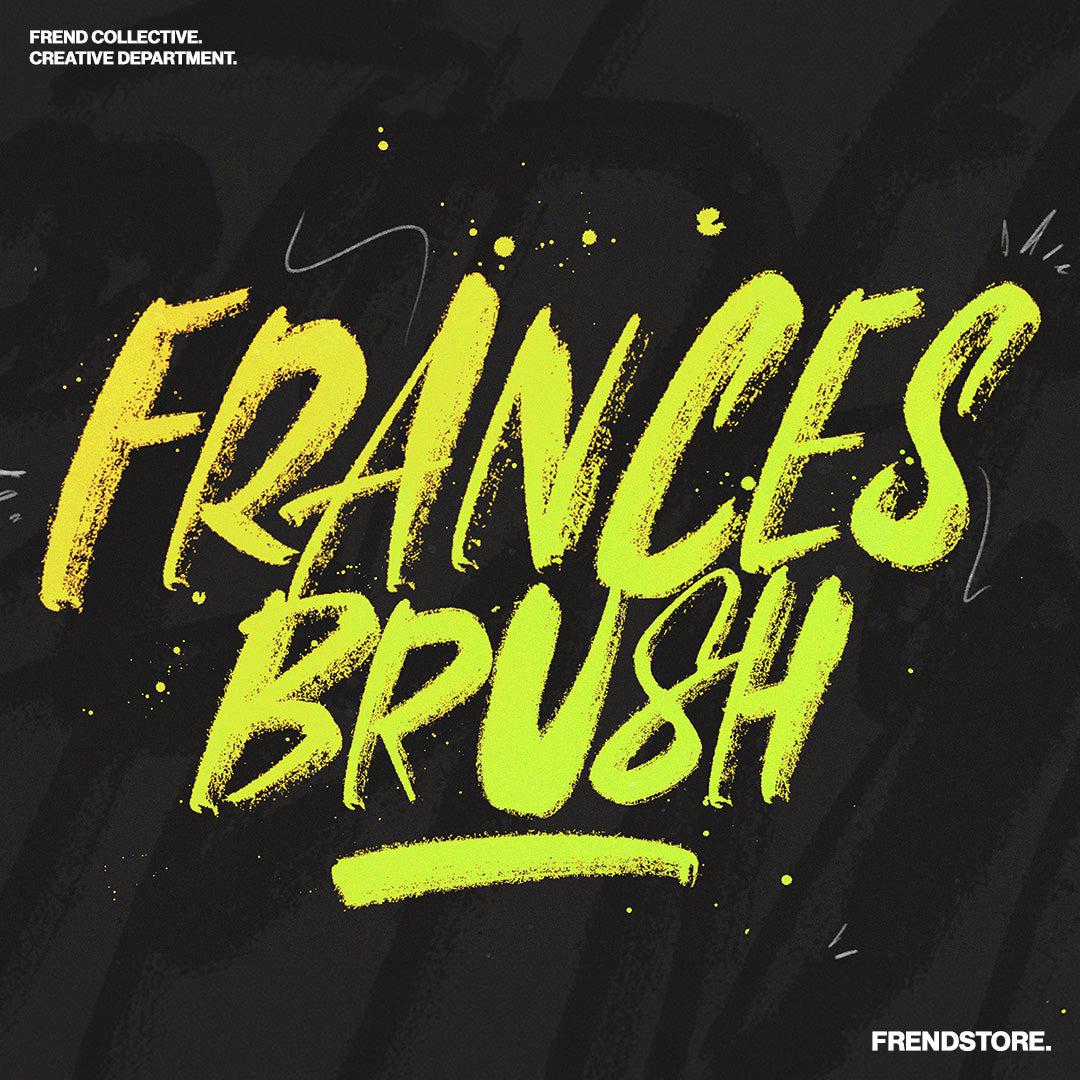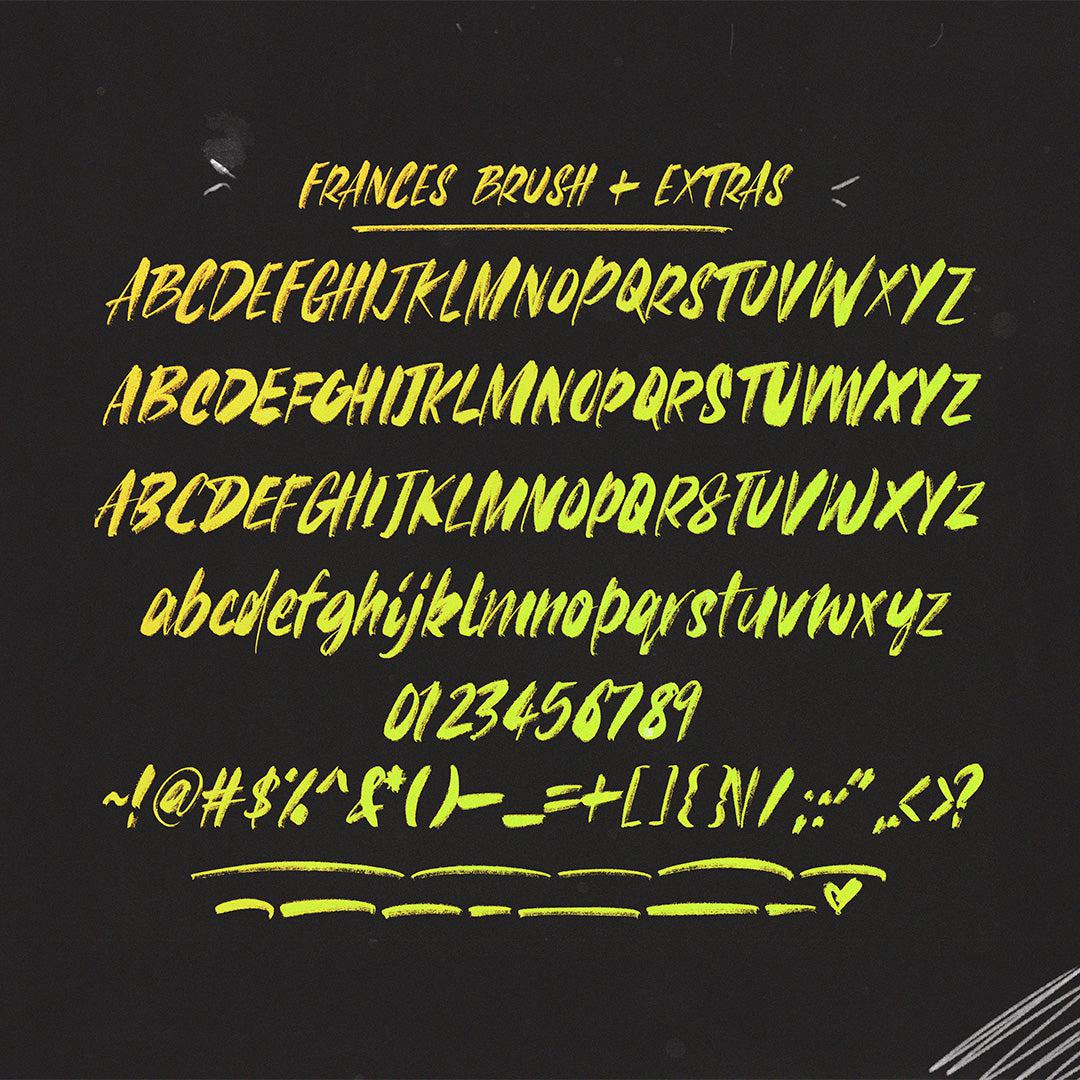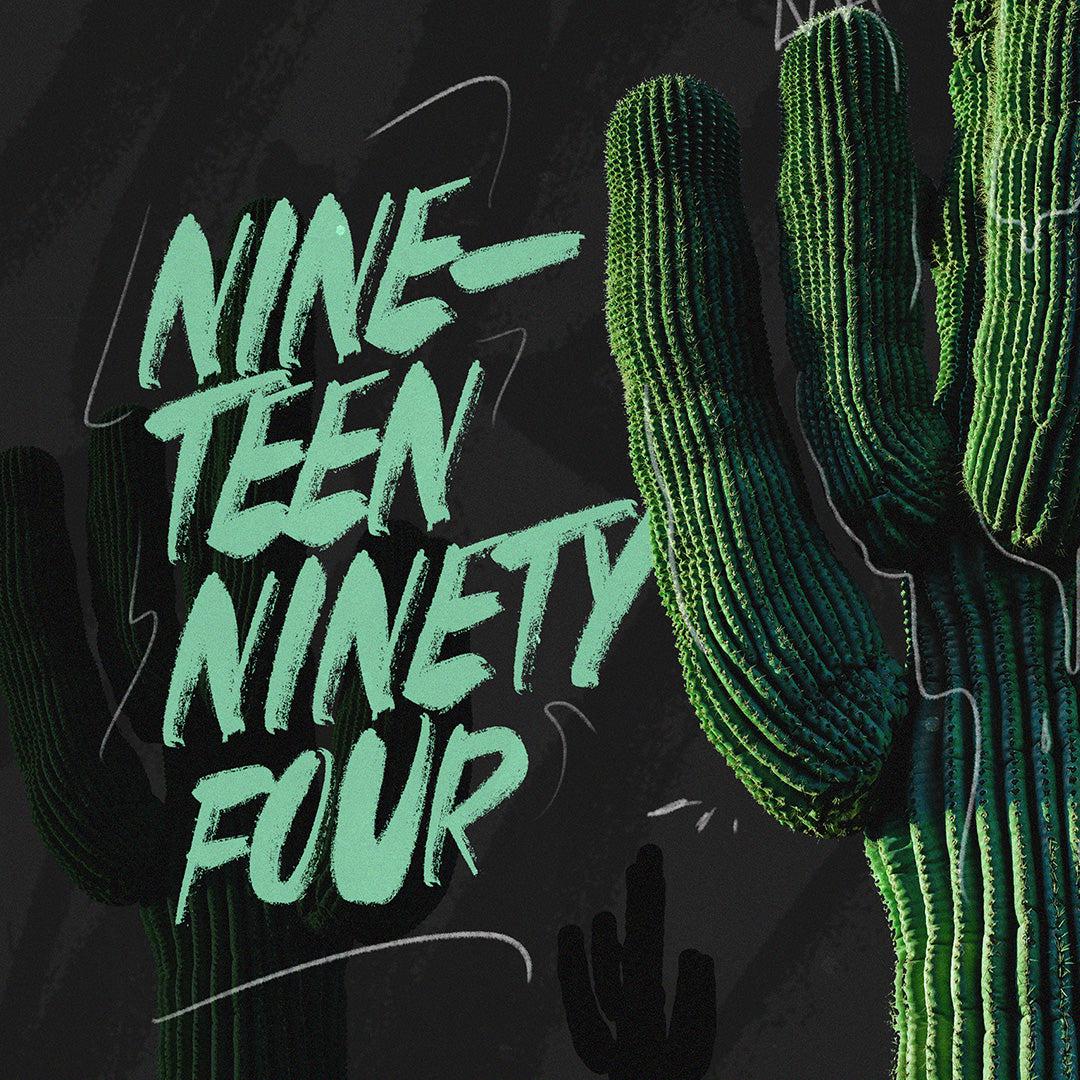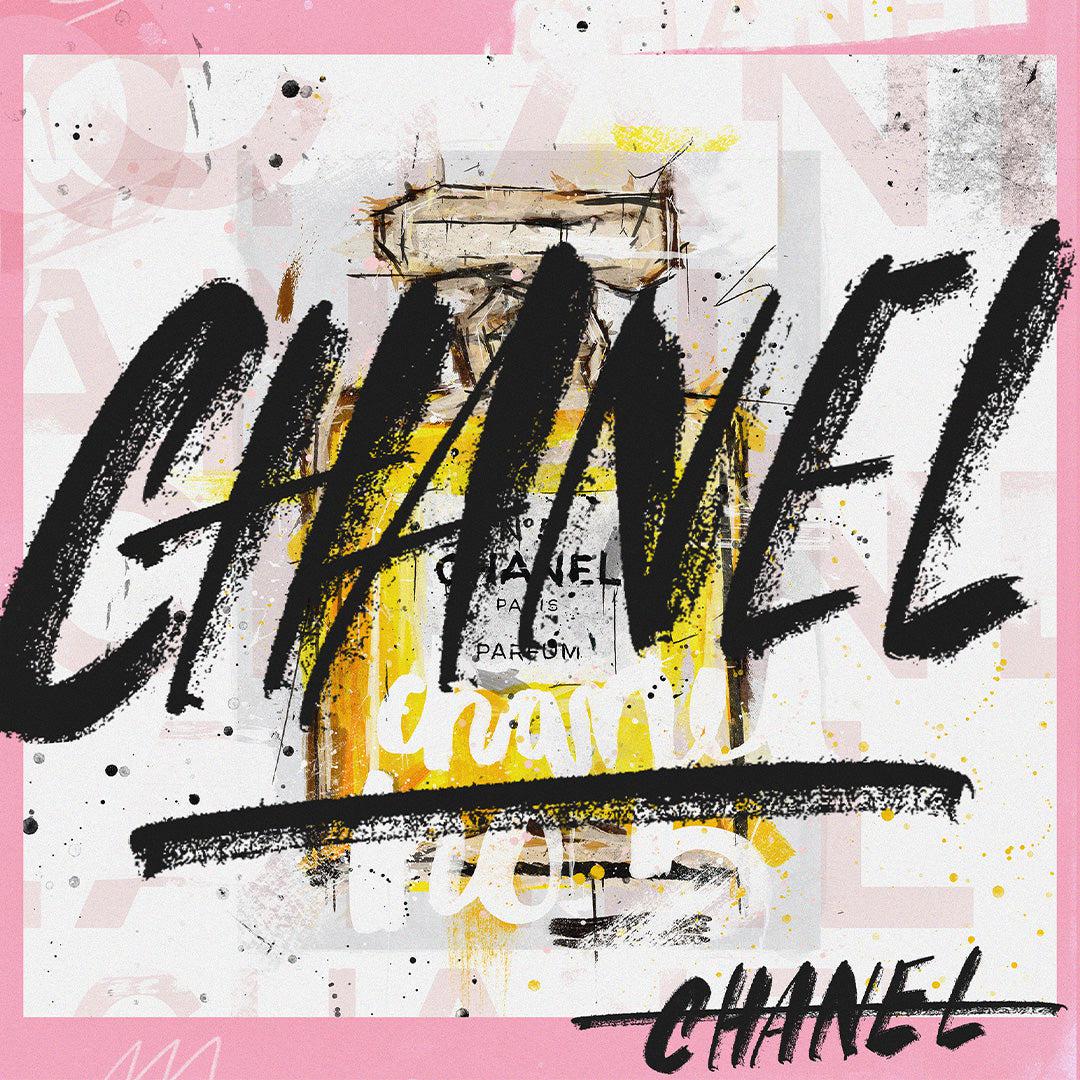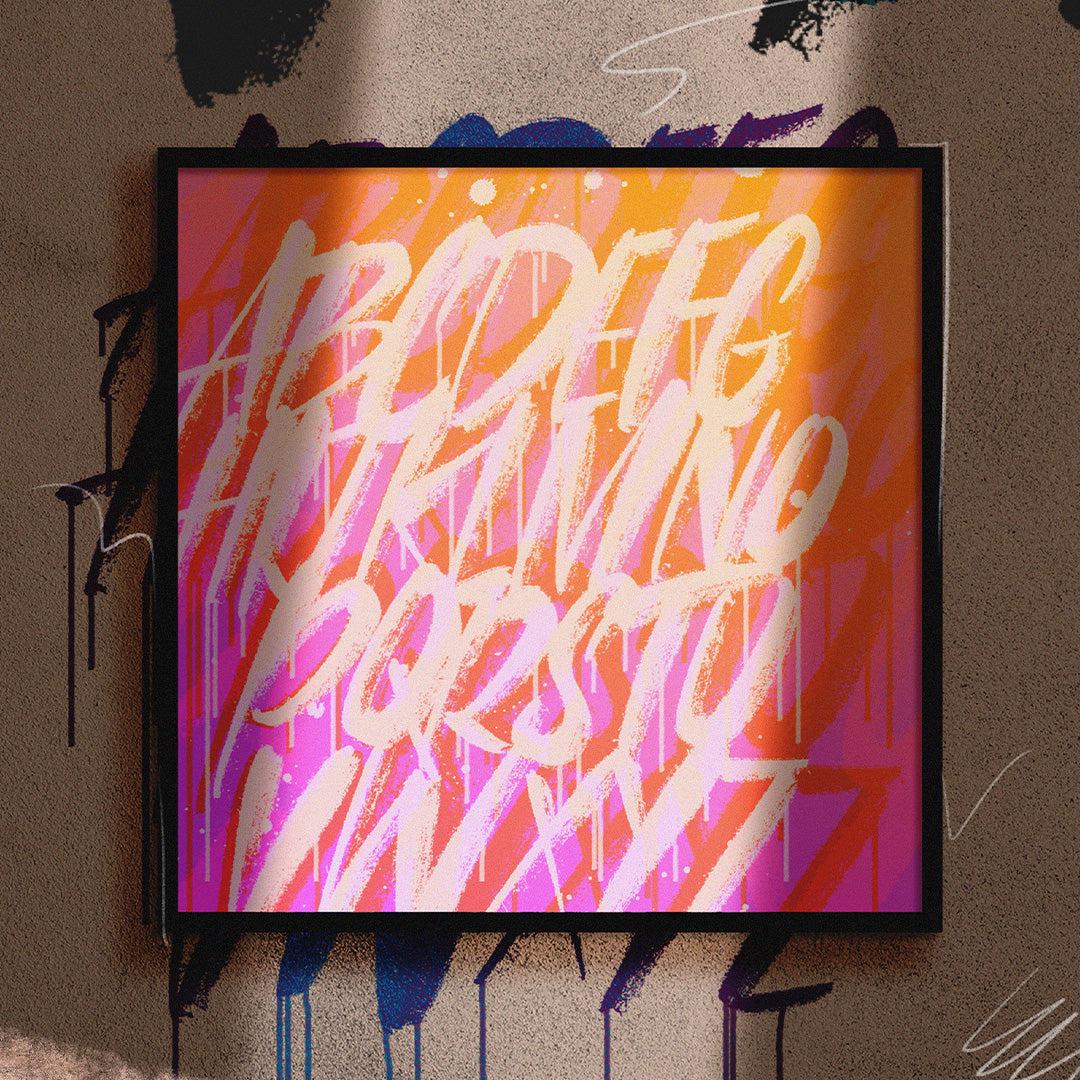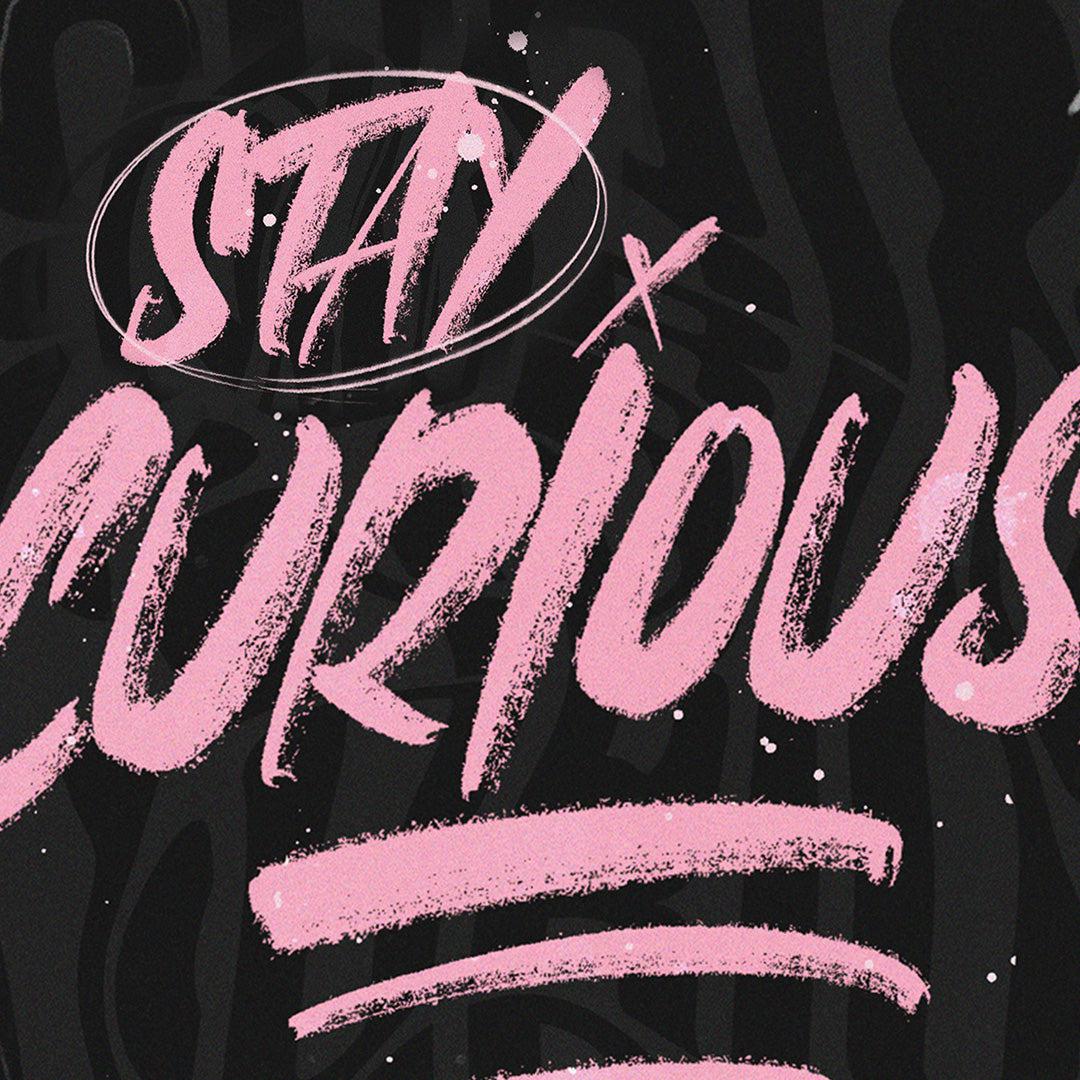
FRANCES BRUSH Font
Frances Brush is a completely unique and custom hand written graffiti font. It comes with 3 variations, so each word and letter is interchangeable to look different. We’ve included extra underlines and a psd & vector splatter texture which gives your work that little something extra. This font is perfect for any design project!
The FRANCES BRUSH Font is a unique, custom hand-written graffiti font that offers three variations for interchangeable words and letters. It includes additional underlines and a psd & vector splatter texture.